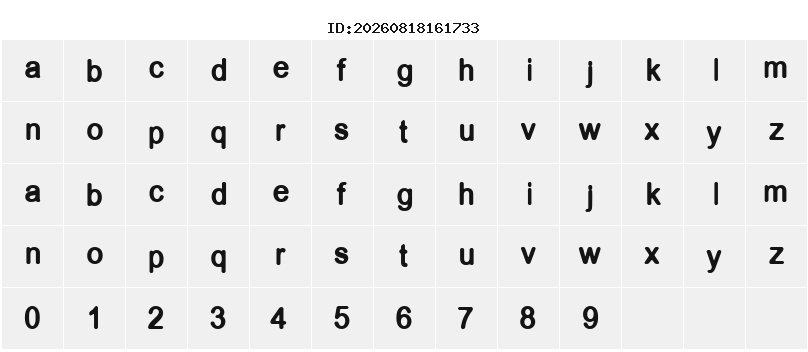
Sleepwalk  Preview
• Font Name: Sleepwalk
• Full Font Name: Sleepwalk
About Sleepwalk .ttf
Sleepwalk .ttf is a modern, elegant sans-serif font designed for ultimate readability and visual harmony. Perfect for branding, headlines, web design, and print materials.